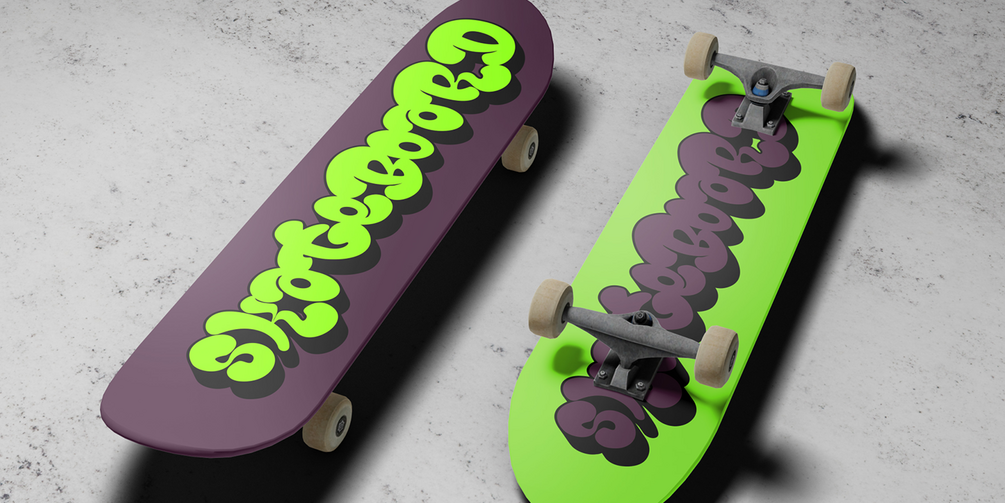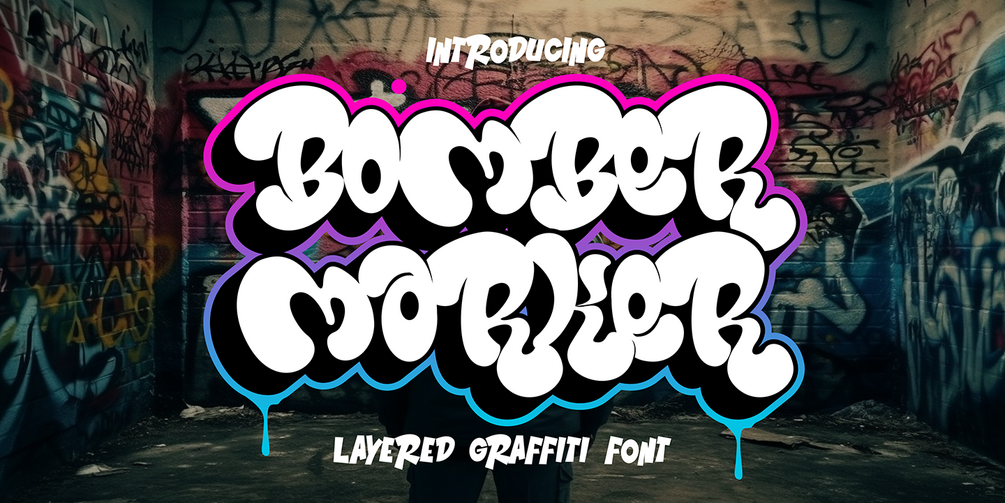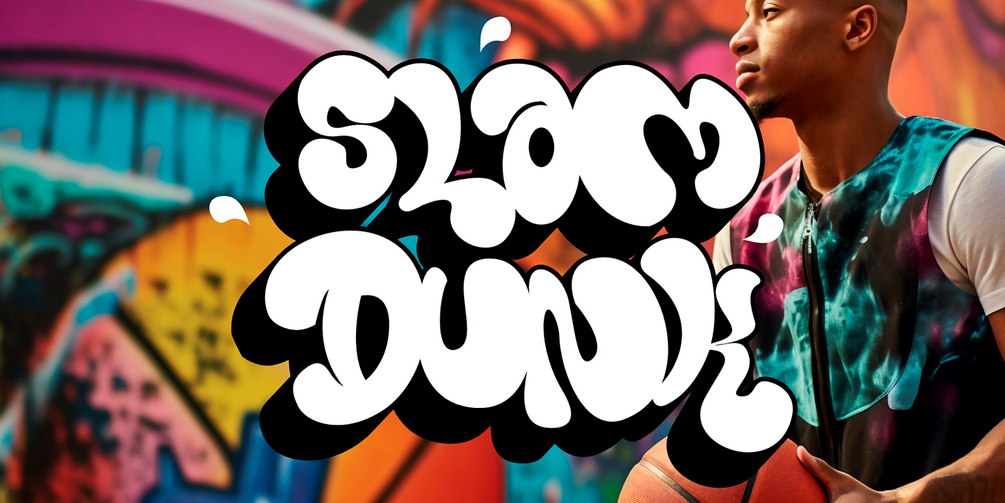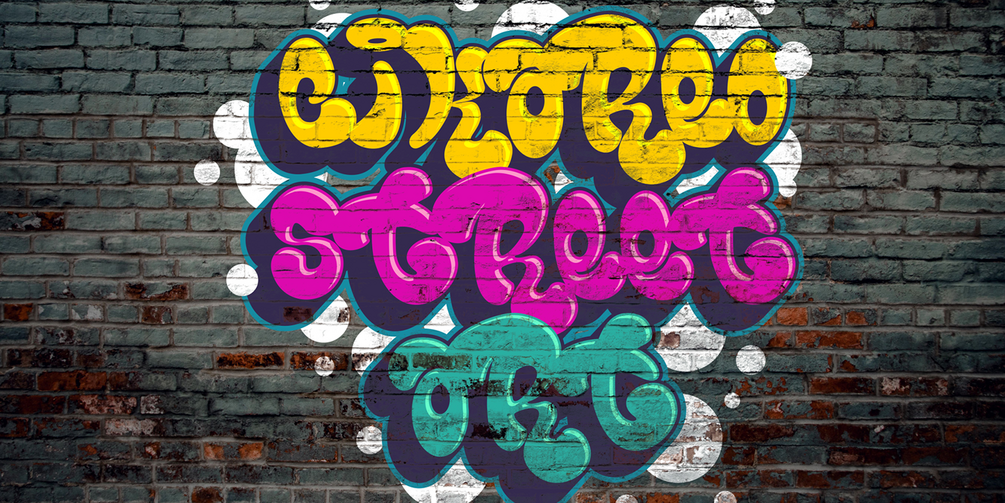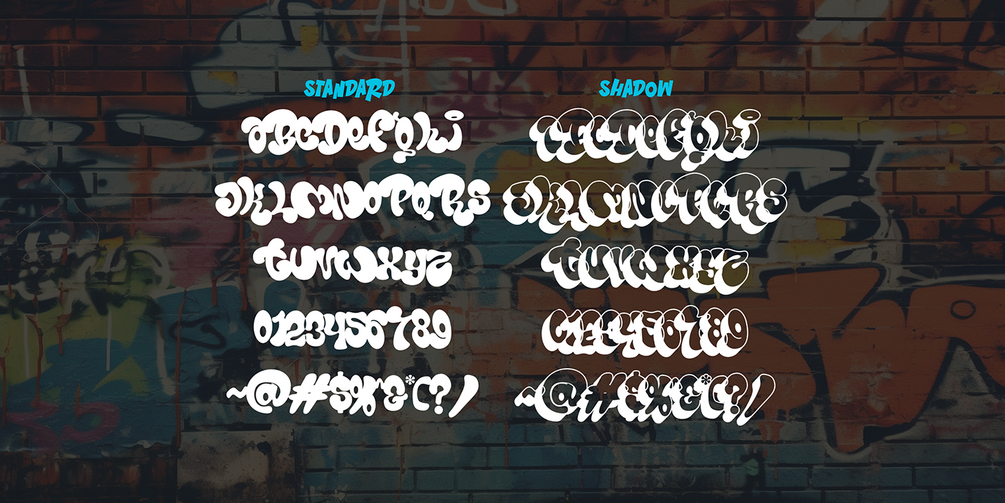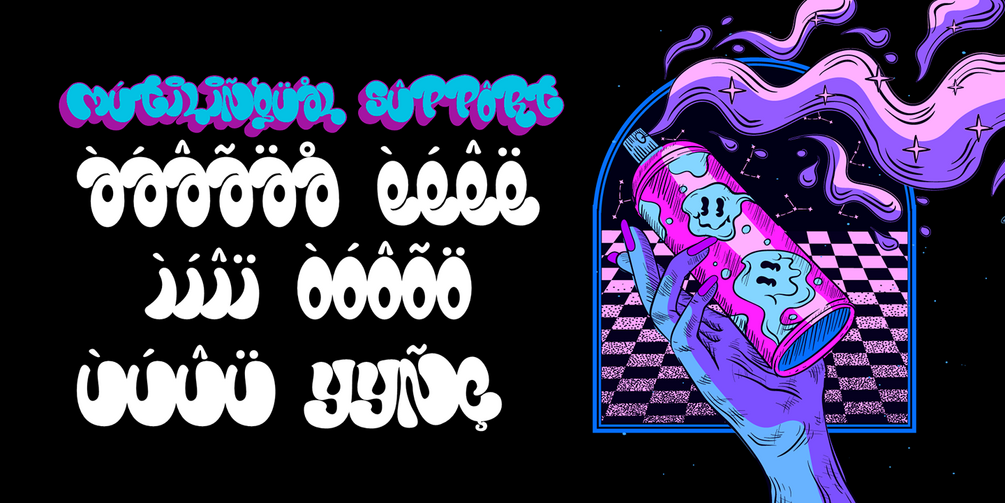
Bomber Marker is a bold and quirky graffiti font with a bulky and expressive character, perfect for adding an urban, street-style edge to your designs. Featuring two distinct layers—Solid and Shadow, this font creates depth and dimension, making your text stand out with a raw and energetic graffiti vibe.
Ideal for streetwear branding, hip-hop posters, urban artwork, album covers, stickers, murals, and more, Bomber Marker brings a fun yet rebellious personality to any creative project. Its thick, hand-drawn strokes and playful details make it a must-have for anyone looking to capture the essence of authentic street art and graffiti culture.
• Versatile for branding, headline, or printing product